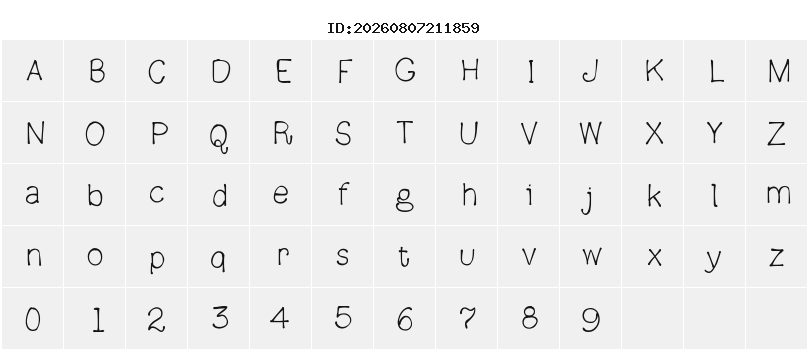
• Font Name: parsniptime
• Font ID: daegeseage:parsniptime
• Full Font Name: parsniptime
• PostScript Name: parsniptime
• Character Count: 99
• Copyright: daegeseage
About parsniptime.ttf
parsniptime.ttf is a modern, elegant sans-serif font designed for ultimate readability and visual harmony. Perfect for branding, headlines, web design, and print materials.